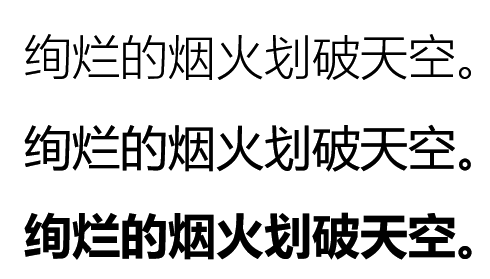
Microsoft YaHei: A Simplified Chinese font developed by taking advantage of ClearType technology, and it provides excellent reading experience particularly onscreen. The font is very legible at small sizes.
Microsoft YaHei UI: The font glyphs are certified compliant with China standard GB18030-2000 with the font name Founder Lan Ting Hei. Microsoft Licensed the font glyph from Beijing Founder Electronics Co. Ltd. GB18030-2000
| Designers | Founder |
| Font vendor | Microsoft Corp. |